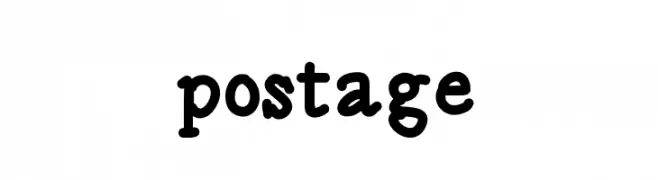
( Fonts by Katsia Jazwinska )
A bold, expressive handwritten font with fluid, connected strokes.
( Kate Matheson - adifficultwoman.com )
A playful, bold font with rounded edges and a hand-drawn appearance.
A playful handwritten font with flowing, irregular letterforms and a modern aesthetic.
( Katz Fontz - katzfonts.50megs.com/kg.html )
A whimsical font with characters integrated into computer-themed designs.
( Fonts by Hideki Katayama - com4t-fff.seesaa.net )
A delicate and elegant script font with flowing, interconnected letters and thin strokes.